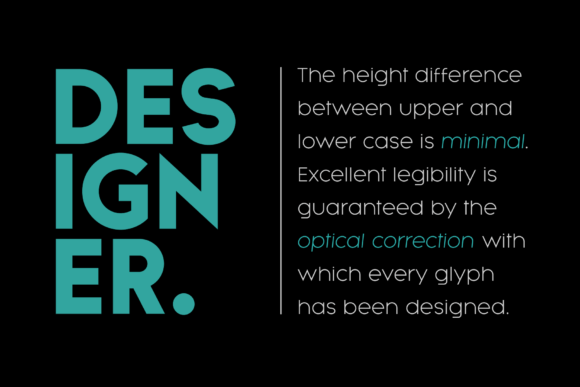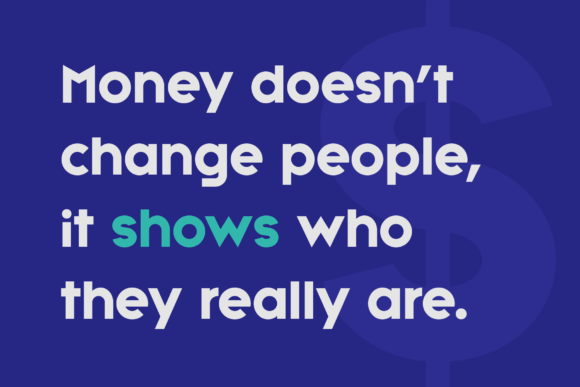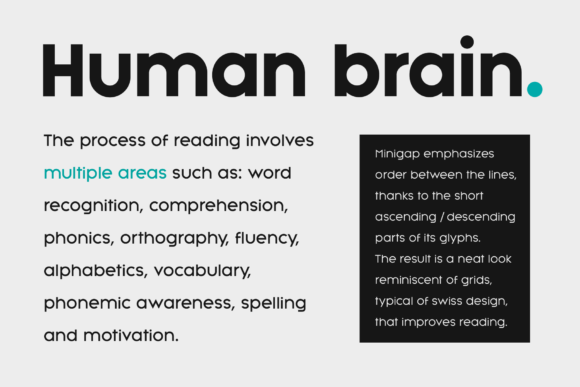
Minigap Font
Minigap is a geometric sans serif font family that has a minimal height difference between upper and lower case. In other words, if you’re into typography, it has a very high x-height… yes, very high.The choice was made to finally have a typeface that could appear very neat, reducing ascending and descending parts of the glyphs (b, d, g, j, l, …) that could interfere with the lines above and below. All of that without going to extremes in a unicase style, but also without renouncing to great legibility.This aesthetic, in fact, translates into a pleasant visual effect that creates well-defined lines and enhances the layout, looking excellent on small screens.A meticulous optical correction starting from pure geometric lines was applied to every glyph, aiming to obtain the best version of each.The pointed corners of capital letters and numbers have been kept even in the heavier styles to give consistency to the family. You can clearly see how clean they look.Stylistic alternates are included: – “i” and “j” can be set to the x-height to have a more common aesthetic; by default they are set in the lower version, fitting better the purpose of this typeface.– a two-story “a” is also available to give you one more customizable option and extend the range of use.Minigap is a universal font. Versatile by nature, it can work in countless situations. From physical products such as company material, signage, and magazines to digital environments like apps and websites. Suitable for embracing a corporate rebrand.